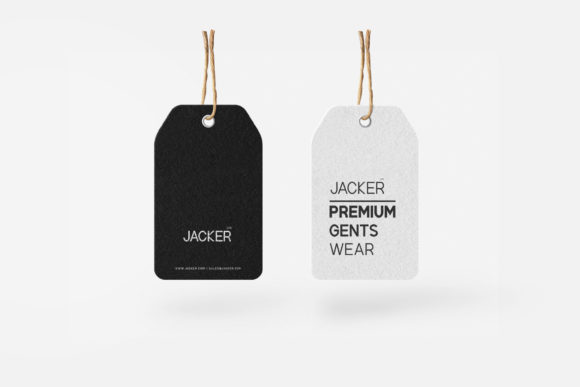
Introduction to Lavenice Font
Have you ever found yourself staring at a blank canvas, trying to come up with the perfect design for your next creative project? The blank page can be intimidating, but with the right tools, anything is possible. For designers, having a reliable and versatile design resource is crucial to bringing their ideas to life.
That’s where the Lavenice Font comes in – a modern sans serif font that’s sure to become your go-to choice for any design project. Its neat and simple style makes it perfect for a wide range of designs, from logos to web graphics and beyond. Whether you’re working on a high-quality brochure or a simple social media post, the Lavenice Font is a valuable addition to any designer’s toolkit.
Key Features of Lavenice Font
- High-quality, professional design for creative projects, making it a valuable design resource.
- Includes a range of characters and glyphs, making it suitable for a variety of creative projects.
- Features a unique, modern design aesthetic, setting it apart from other fonts in its class.
- Designed with a high resolution, ensuring crisp and clear text display, even at larger sizes.
Honest Review: Lavenice Font
As a designer, I’m always on the lookout for high-quality design resources to elevate my creative projects. The Lavenice Font is one such find that has caught my attention. On the surface, it appears to be a well-crafted font with a unique aesthetic that can add a touch of elegance to any design.
What works well about the Lavenice Font is its versatility. ✨ It comes in multiple weights and styles, making it suitable for a wide range of creative projects. From headings to body text, this font can be used to create visually appealing designs. Additionally, the font is available for free download, making it an excellent resource for designers on a budget.
- Multiple weights and styles for versatility
However, I did encounter some limitations with the Lavenice Font. ⚠️ The font is not as robust as some of the more premium fonts available, and the kerning can be a bit off at times. These issues are relatively minor, but they do impact the overall quality of the font.
Overall, I would recommend the Lavenice Font to designers who are looking for a high-quality, free design resource. While it may not be perfect, its unique aesthetic and versatility make it a valuable addition to any design toolkit.
The Lavenice Font is a high-quality, versatile design resource ideal for creative projects. It features a transparent background, making it perfect for layered compositions.
The Lavenice Font is suitable for a wide range of creative projects, including logos, brochures, business cards, and social media graphics.
Experiment with different font sizes, colors, and styles to achieve a unique look. Combine the Lavenice Font with other design elements to create visually appealing compositions.